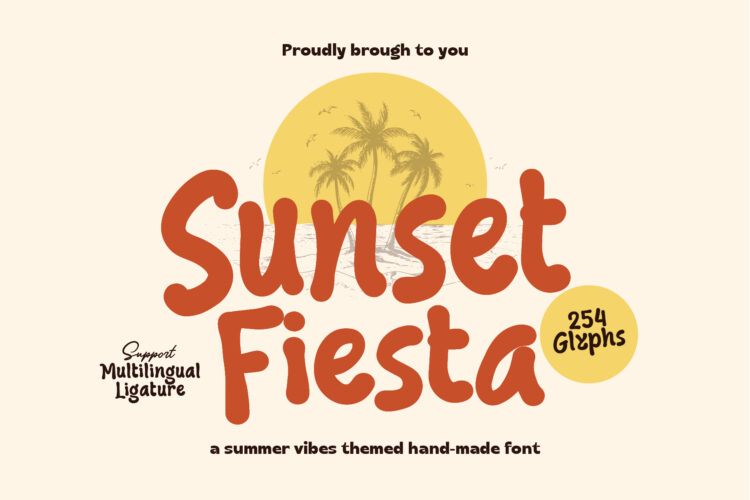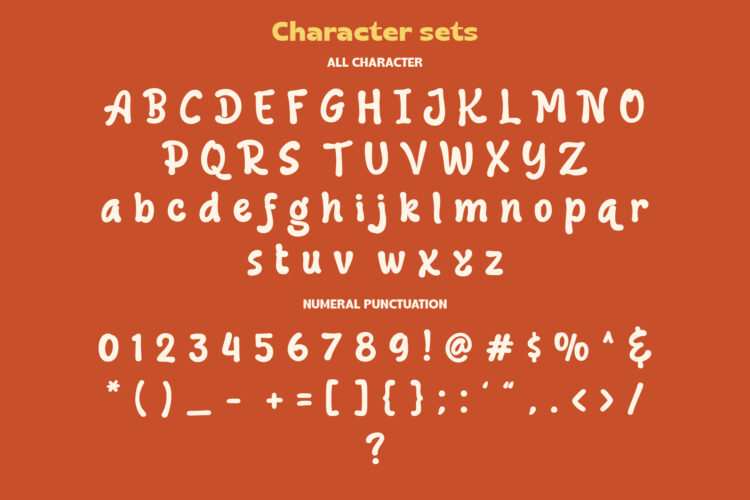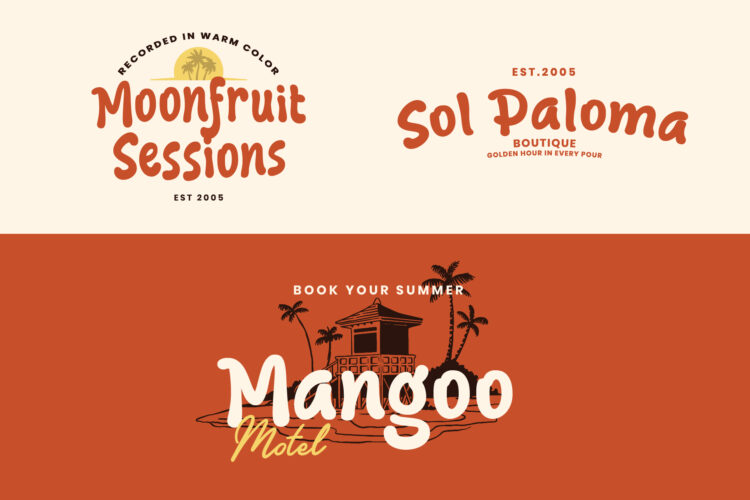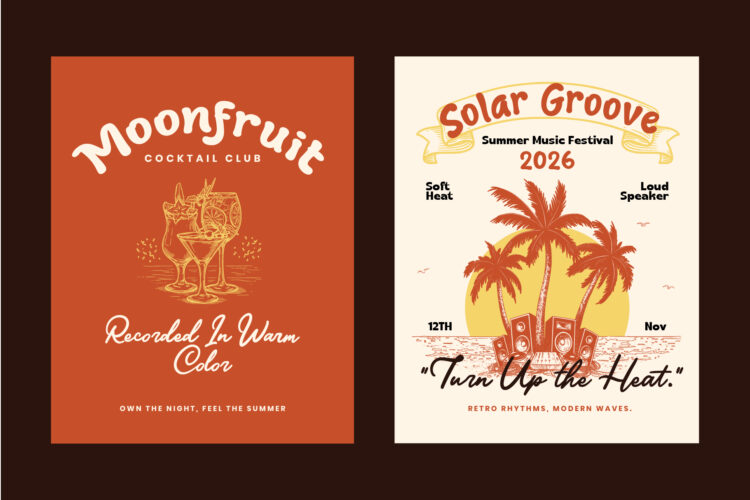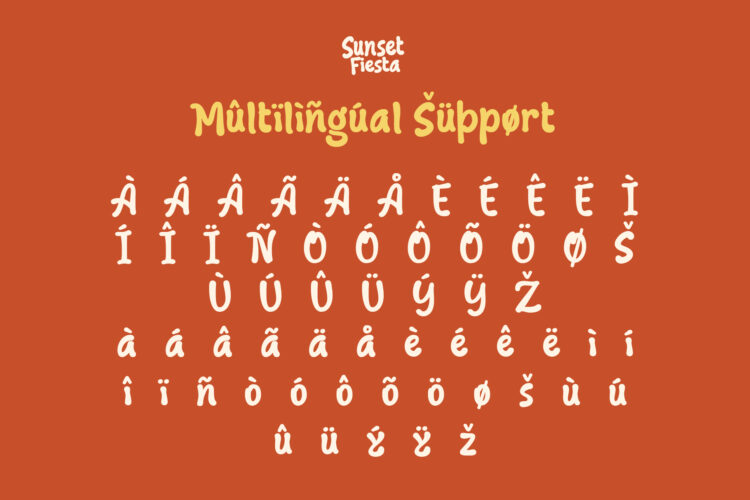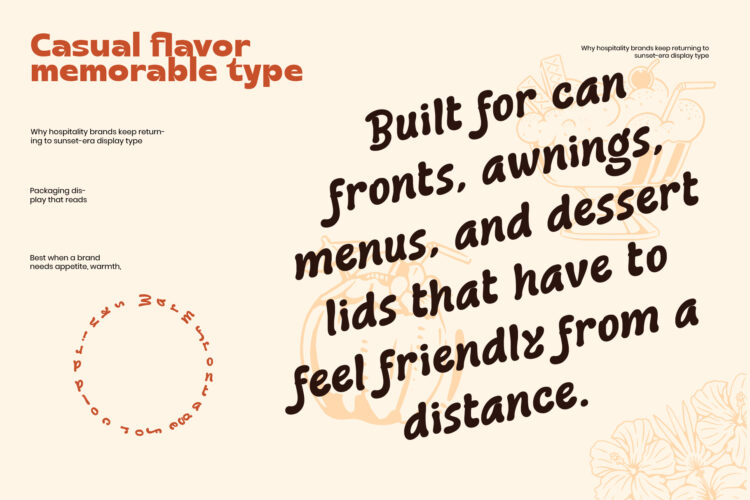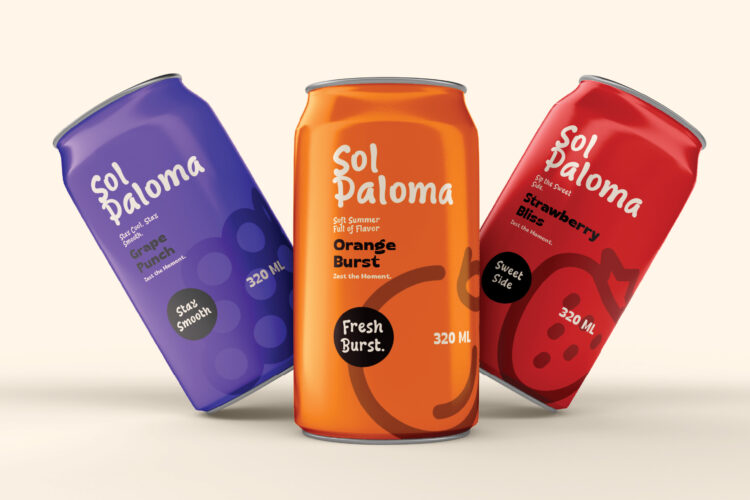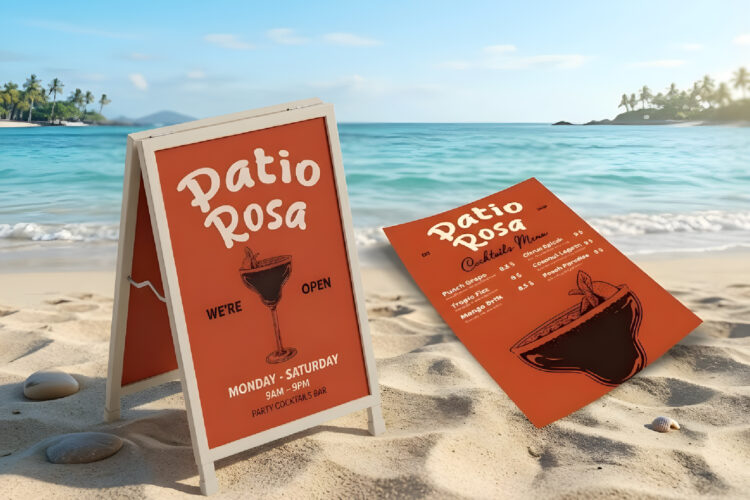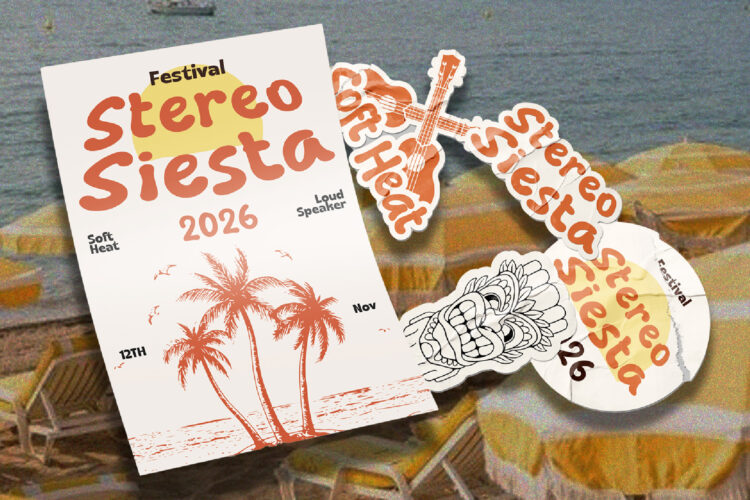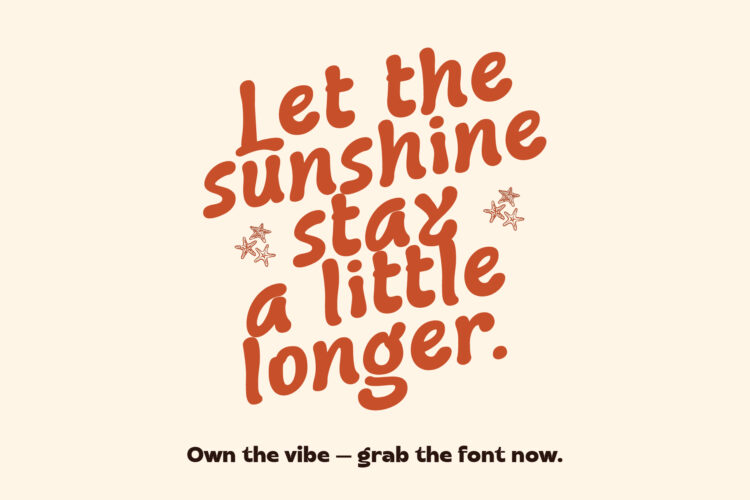
Sunset Fiesta is a bold, hand-crafted display font inspired by golden-hour warmth, tropical getaways, and retro summer culture. Designed for high-impact display use, it brings instant personality to any project.
Features:
- 254 glyphs
- Uppercase & lowercase characters
- Numerals & punctuation marks
- Multilingual / accented character support
- Ligature support
Best Used For:
- Logo & brand identity
- Event posters & music festivals
- Food & beverage packaging
- Apparel & merchandise
- Social media graphics
- Menus & signage